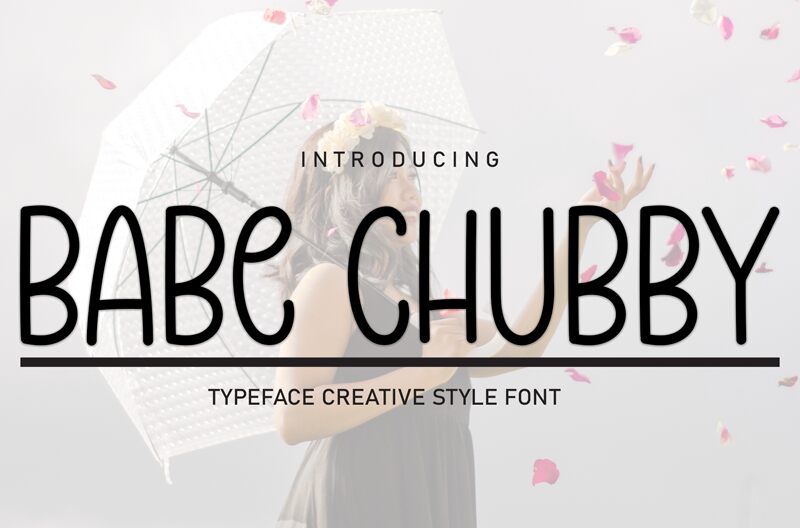
Babe Chubby
Babe Chubby is a captivating handwritten font that exudes a whimsical, playful charm. Its light weight and condensed width lend a sense of casual elegance, while the rounded, organic strokes evoke a distinctly personable character.
This font would shine in a variety of settings, from children's storybooks and product packaging to greeting cards and blog headers, where its warm, approachable aesthetic could effortlessly capture attention and convey a friendly, approachable tone.
The font's versatility makes it a valuable asset for designers seeking to infuse their creations with a touch of casual sophistication and heartwarming appeal.